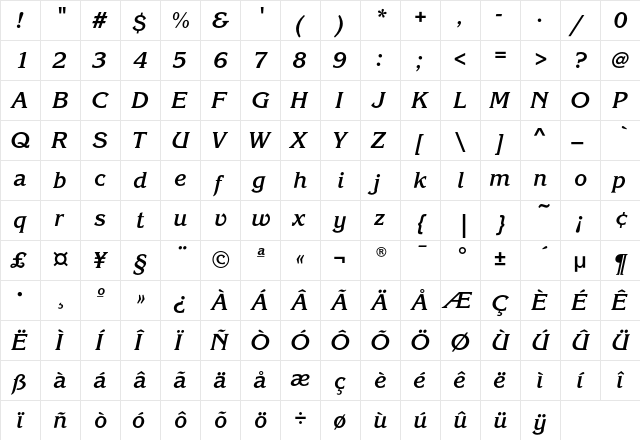
KorinnaEF-KursivBold Regular
Design Context for KorinnaEF-KursivBold Typeface
KorinnaEF-KursivBold offers clean, dependable letterforms without strong stylistic allegiance, making it a practical choice for designers who need flexibility. The dynamic lean of this cut emphasises speed and emphasis in any layout. Its bold stroke weight gives it real presence on the page.
Pro Tip: Try KorinnaEF-KursivBold for annotation and caption copy alongside an upright companion — the contrast in angle creates a dynamic but ordered typographic system.